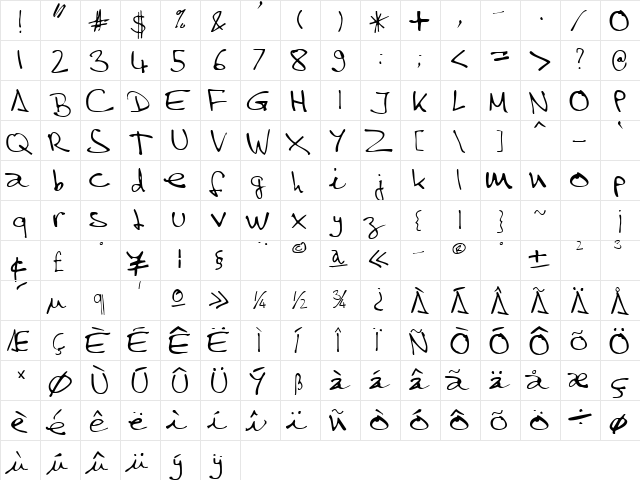
HomelyScriptSSK Regular Font Preview
HomelyScriptSSK Regular
Design Context for HomelyScriptSSK Typeface
HomelyScriptSSK flows with the natural rhythm of handwritten lettering, making it ideal for designs that call for warmth and personal expression.